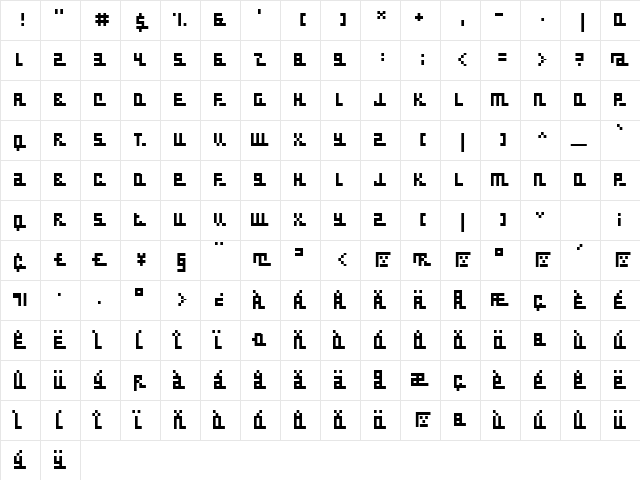
RufusTwo Regular
Design Context for RufusTwo Typeface
RufusTwo takes a measured approach to typography — its balanced proportions and neutral character make it a reliable workhorse for both digital and print work.